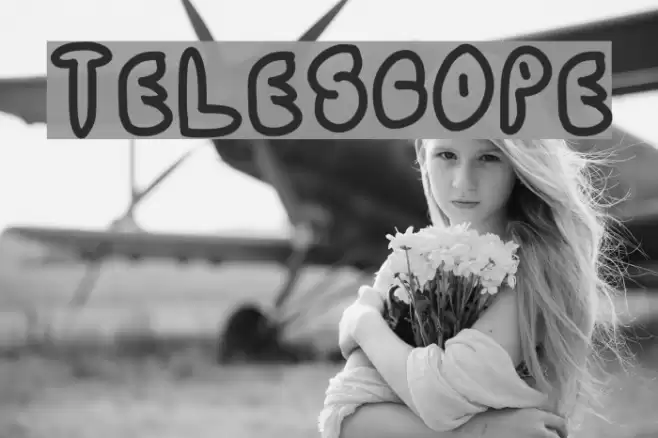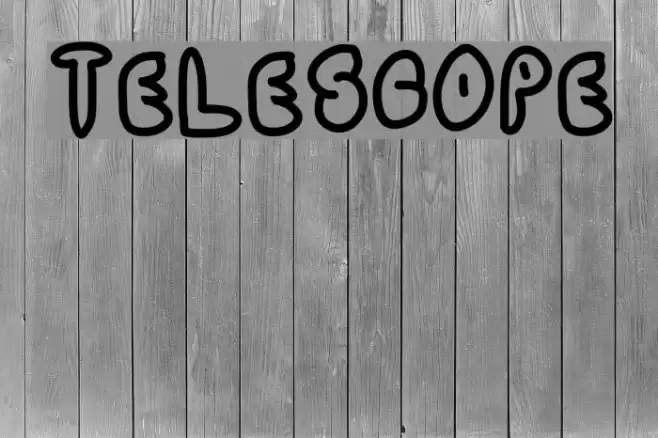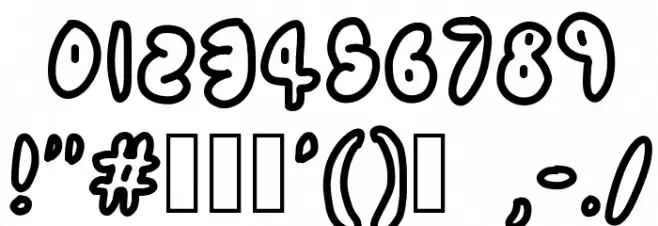
TELESCOPE Font
TELESCOPE Description
This playful and bold font features a bubble-like, rounded style with thick outlines. Each character is distinctly outlined, giving it a cartoonish and fun appearance. The letters are uniformly bold, with a consistent stroke width that creates a cohesive look. The font has a whimsical and informal vibe, making it suitable for creative and lighthearted projects. The characters are well-spaced, ensuring readability while maintaining a playful aesthetic. The numbers and special characters follow the same style, enhancing the font's versatility for various uses.
A playful, bold font with bubble-like, rounded characters and thick outlines from Uncategorized fonts.
- Proposed Projects: Ideal for children's books, comic strips, playful branding, and party invitations.
- Overall Style: Playful